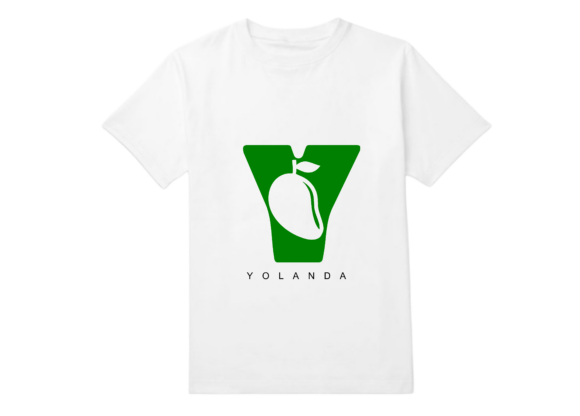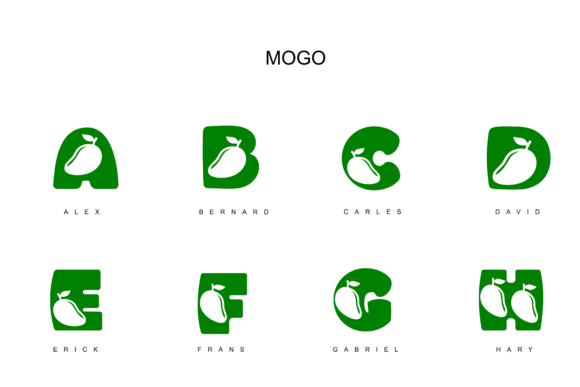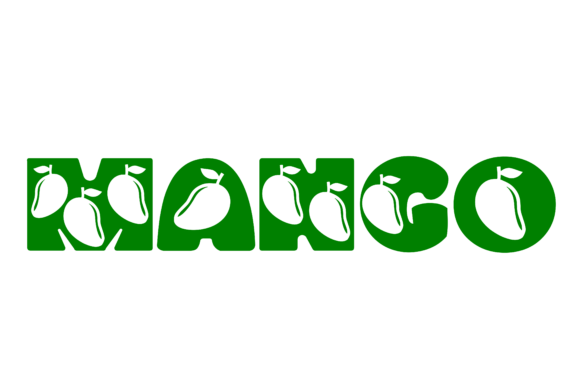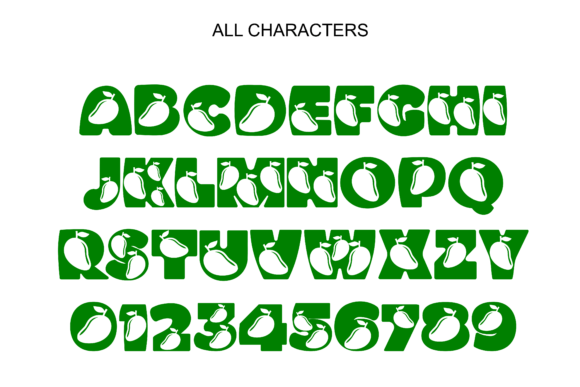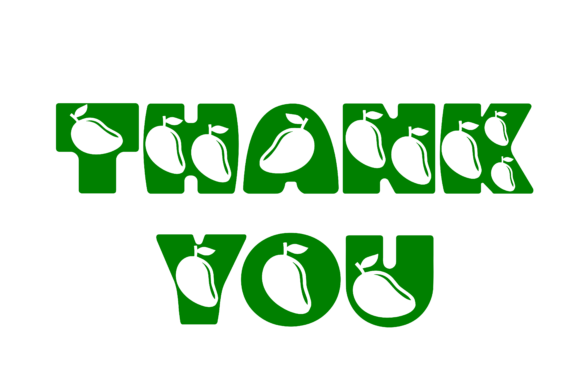
Introduction to Mogo Font
Immerse yourself in the whimsical world of Mogo, a font that is a direct reflection of the beauty and fantasy found within a child’s imagination.
Mogo perfectly encapsulates the thrilling spirit of young innovation, marrying intricately designed glyphs and vivacious alphabets in a hypnotic symphony of lettering Painstaking attention to detail ensures that Mogo stands out as the ultimate framework for a vast array of artistic projects.